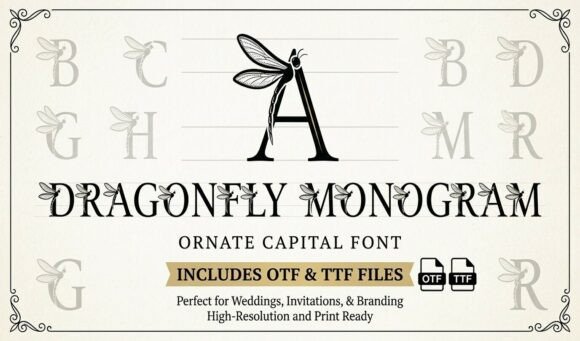
Introducing the Dragonfly Monogram Font: Elevate Your Designs with Whimsical Elegance
Welcome to the Dragonfly Monogram Font, where the beauty of nature meets the sophistication of classic typography. This exquisite decorative typeface is designed to bring a touch of whimsical elegance to your designs, making it perfect for crafters, graphic designers, and small business owners looking to add a unique flair to their projects.
A Delicate Union of Dragonfly and Serif
The Dragonfly Monogram Font boasts a highly detailed and delicate design, where every single letter features a beautifully illustrated dragonfly seamlessly integrated into a classic serif letterform. This intricate design element adds a touch of magic to your designs, making them stand out from the ordinary. The font’s elegant and refined aesthetic makes it ideal for creating stunning, personalized designs with a vintage, magical, or nature-inspired feel.
Whether you are a seasoned graphic designer or a crafter looking to add a personal touch to your handmade products, the Dragonfly Monogram Font is the perfect choice. Its versatility and charm make it suitable for a wide range of design applications, including:
- Personalized stationery and invitations
- Custom branding and packaging
- Handmade crafts, such as sewing, embroidery, and paper crafting
- Digital designs, including social media graphics and blog headers
- Small business marketing materials, such as brochures and flyers
Key Features of the Dragonfly Monogram Font
The Dragonfly Monogram Font offers a range of features that make it a valuable addition to your design toolkit:
- Highly detailed and delicate dragonfly illustrations integrated into classic serif letterforms
- Elegant and refined aesthetic with a touch of whimsy
- Perfect for creating personalized designs with a magical, vintage, or nature-inspired feel
- Suitable for a wide range of design applications, from digital designs to handmade crafts
- Easy to use and customize for your unique design needs
Tips for Using the Dragonfly Monogram Font
To get the most out of the Dragonfly Monogram Font, here are a few tips to keep in mind:
- Use the font as a statement piece: The Dragonfly Monogram Font is designed to be a focal point in your designs, so don’t be afraid to use it as a statement piece.
- Experiment with colors and textures: The font’s delicate design looks stunning with a range of colors and textures, so don’t be afraid to experiment and find the perfect combination for your design.
- Pair with complementary fonts: The Dragonfly Monogram Font pairs beautifully with clean, sans-serif fonts, so consider pairing it with a font like Arial or Helvetica for a striking contrast.
The Dragonfly Monogram Font is a unique and versatile design tool that can elevate your designs to new heights. Its delicate and whimsical aesthetic makes it perfect for crafters, graphic designers, and small business owners looking to add a touch of magic to their projects. With its highly detailed illustrations, elegant design, and range of uses, this font is sure to become a favorite in your design toolkit.